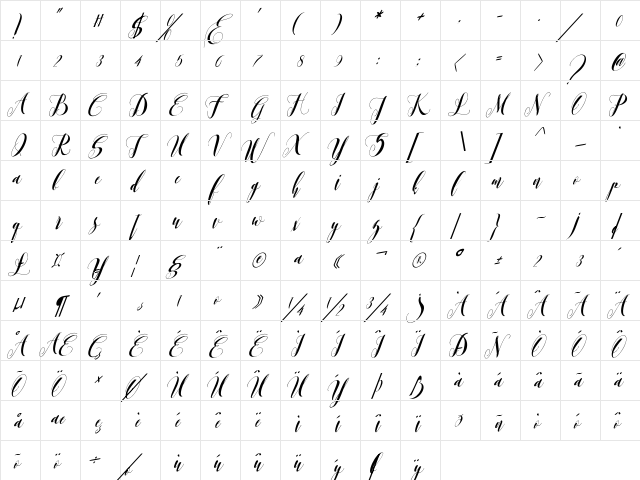
Romantis momen Regular
Design Context for Romantis momen Typeface
Romantis momen is a composed and adaptable typeface that performs quietly and consistently across a wide range of design contexts.